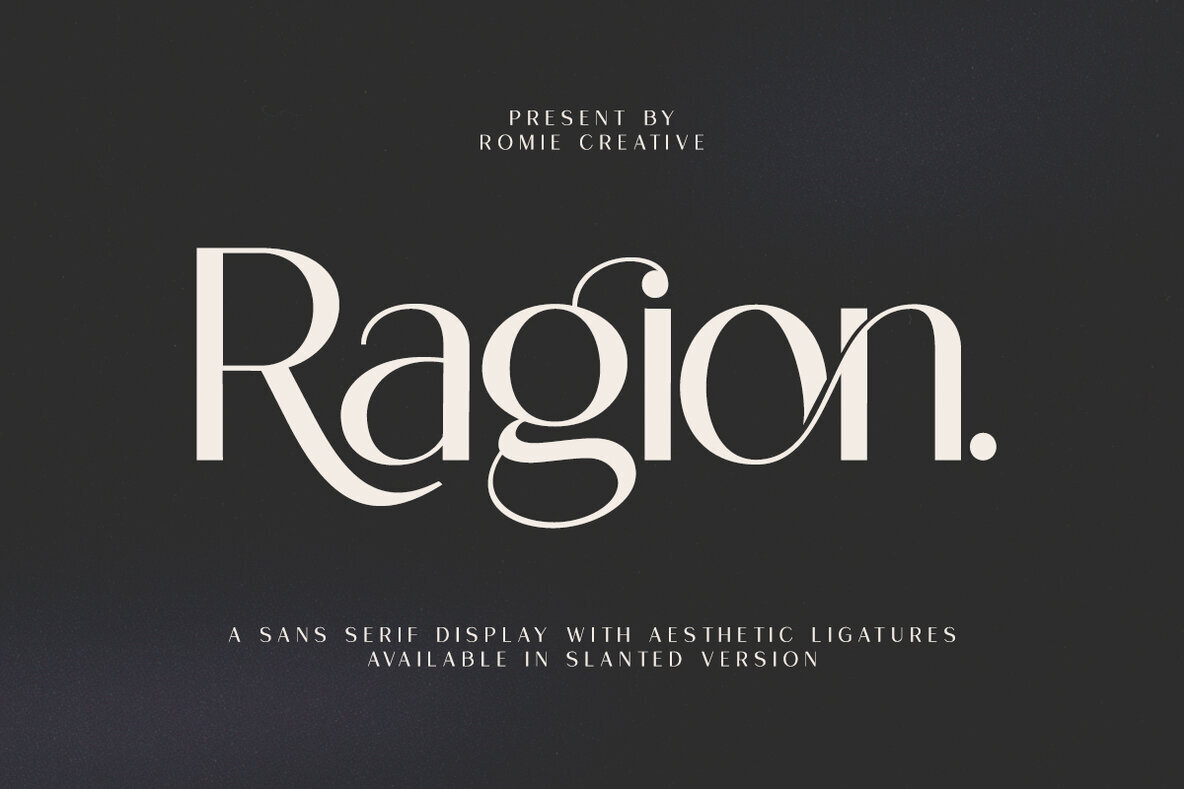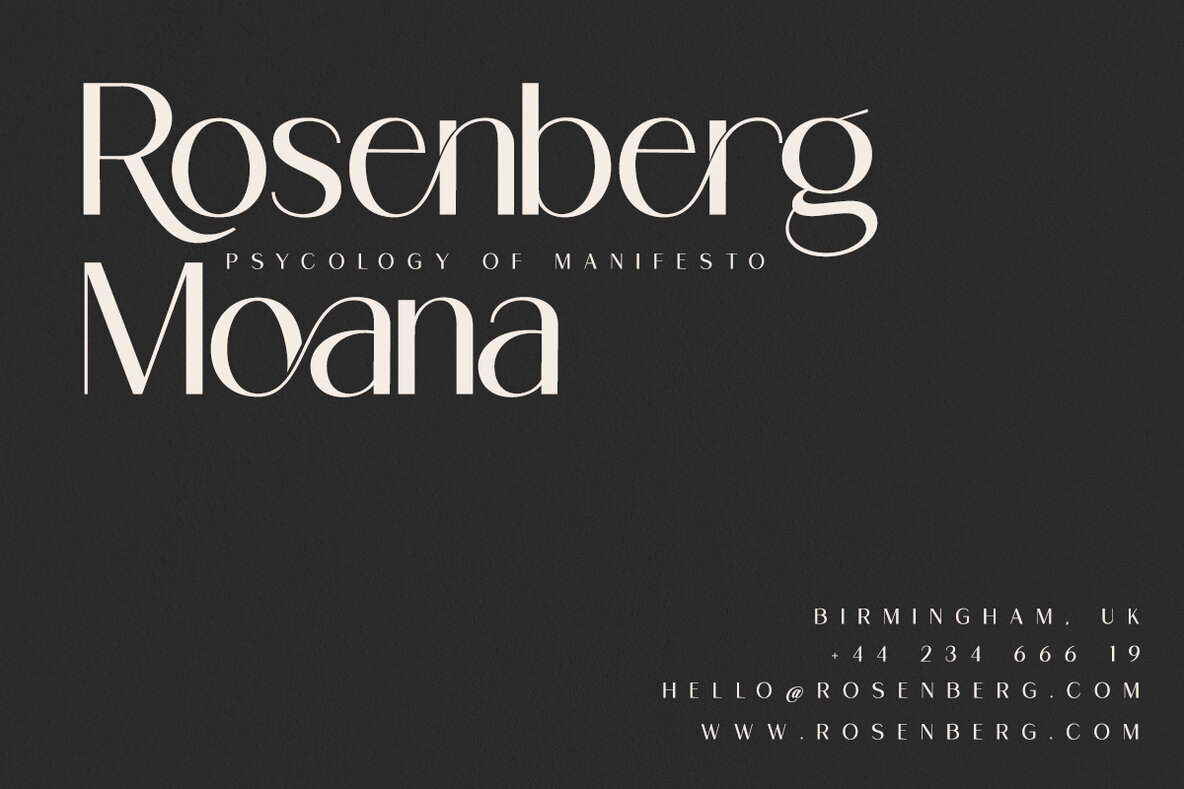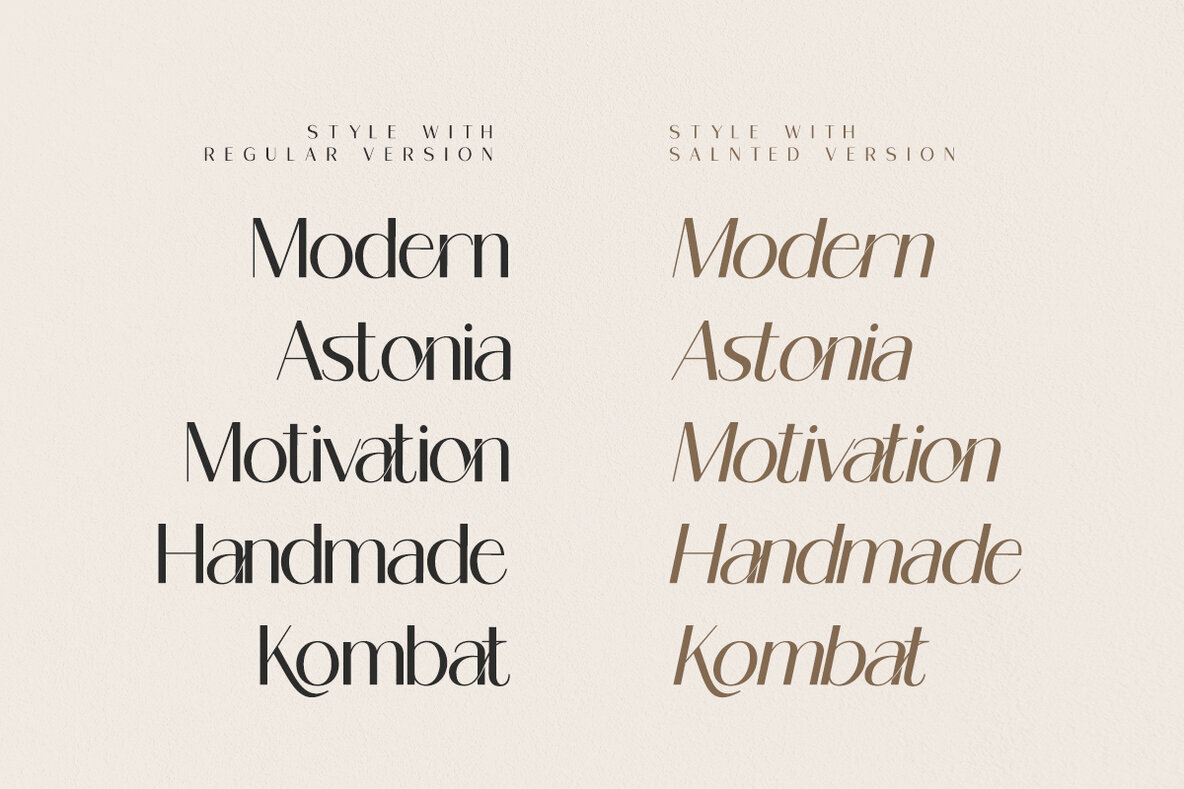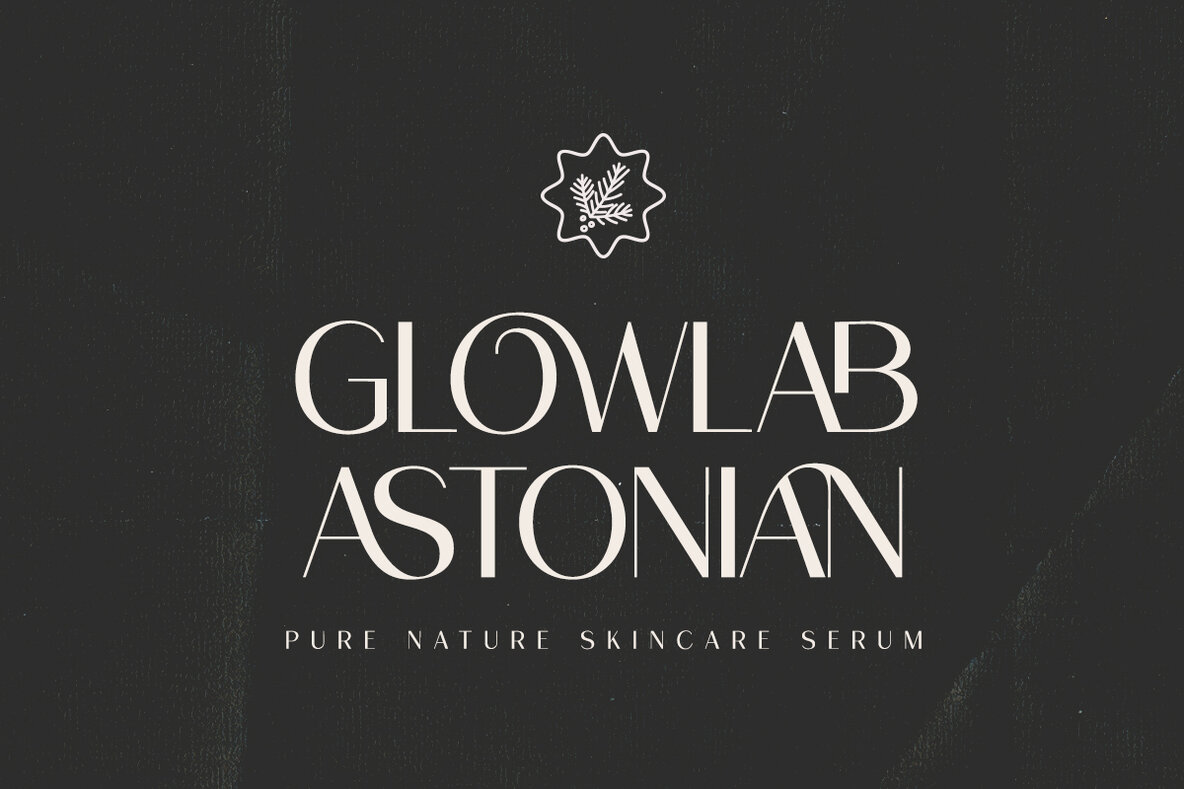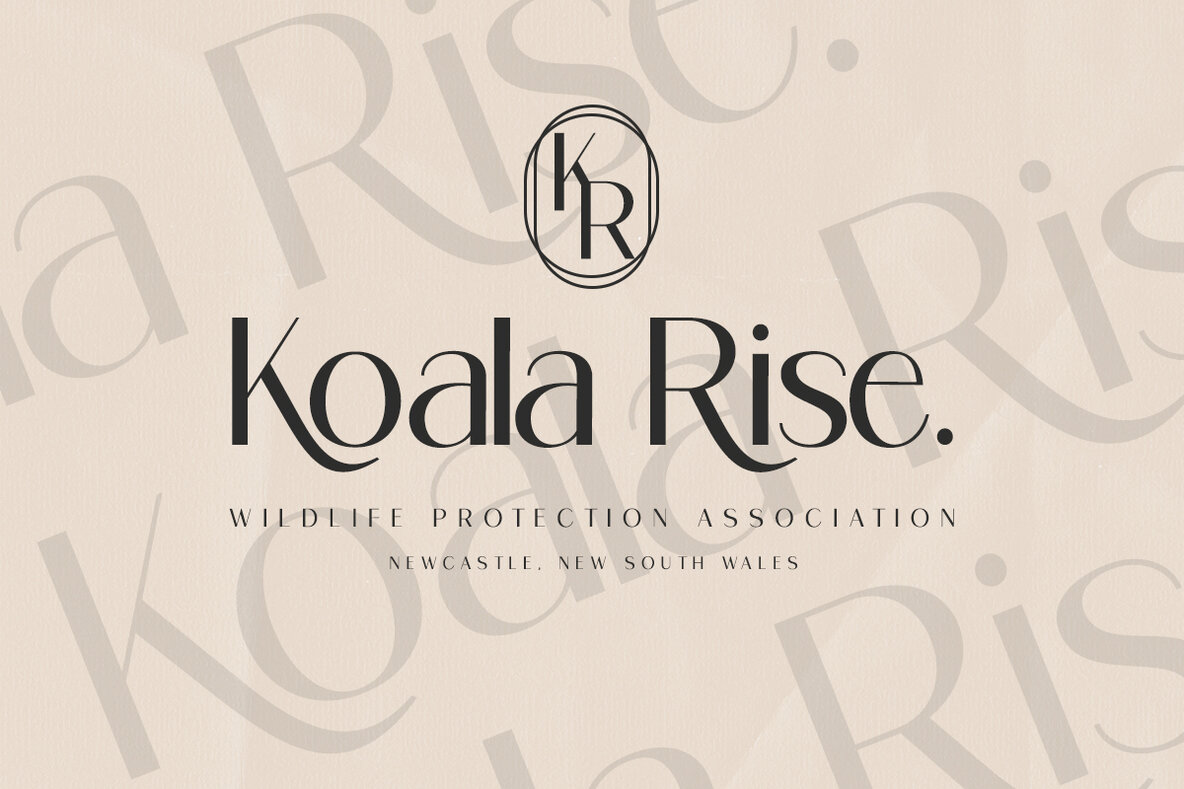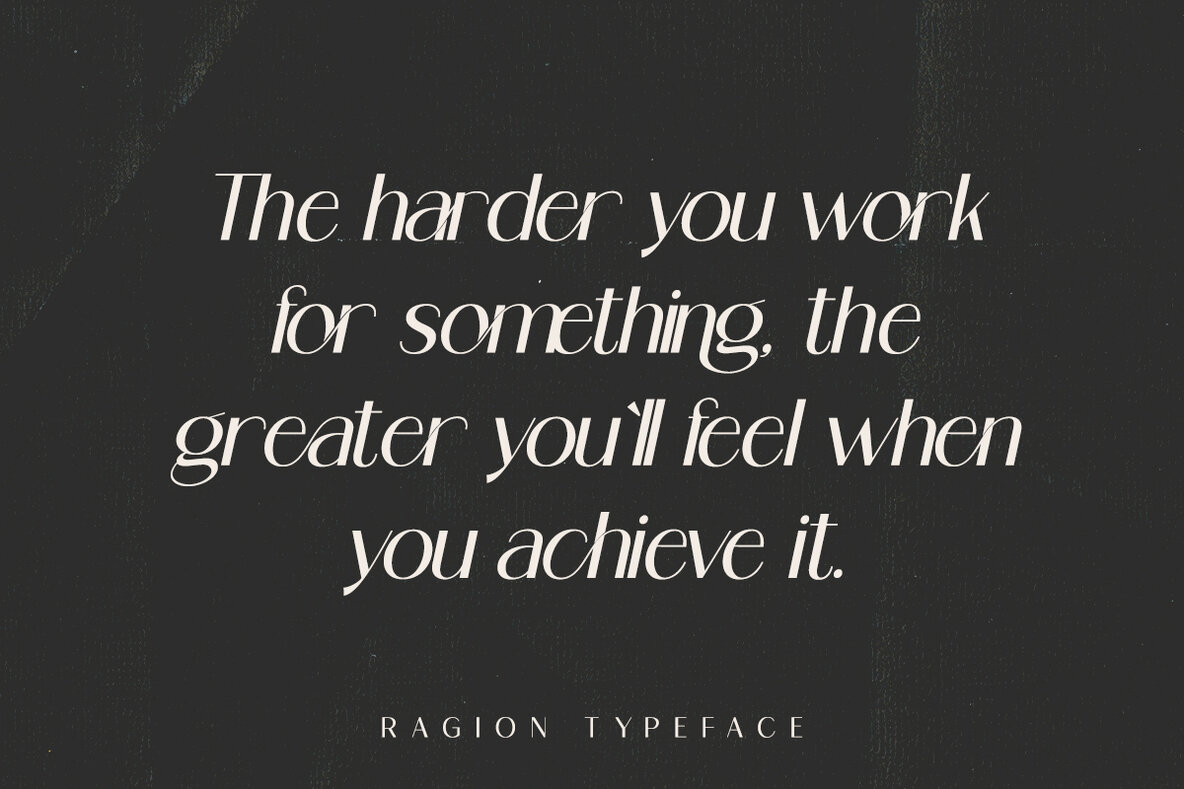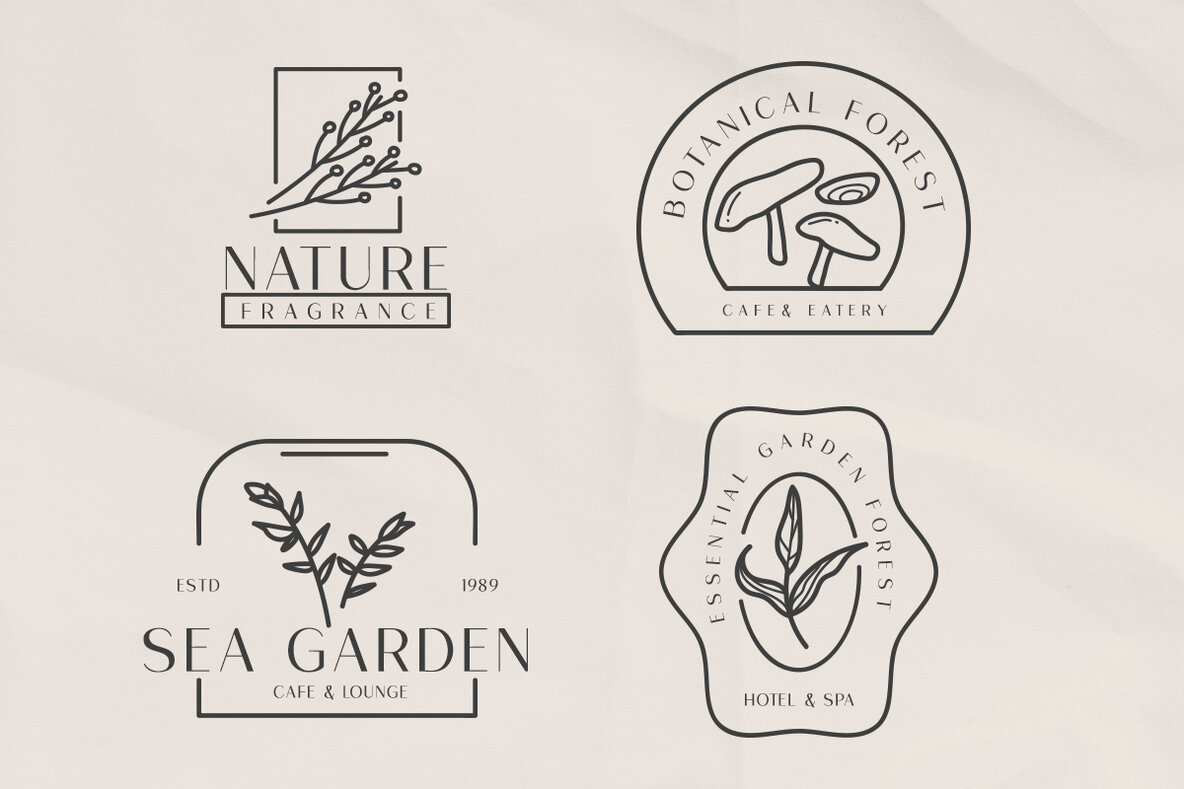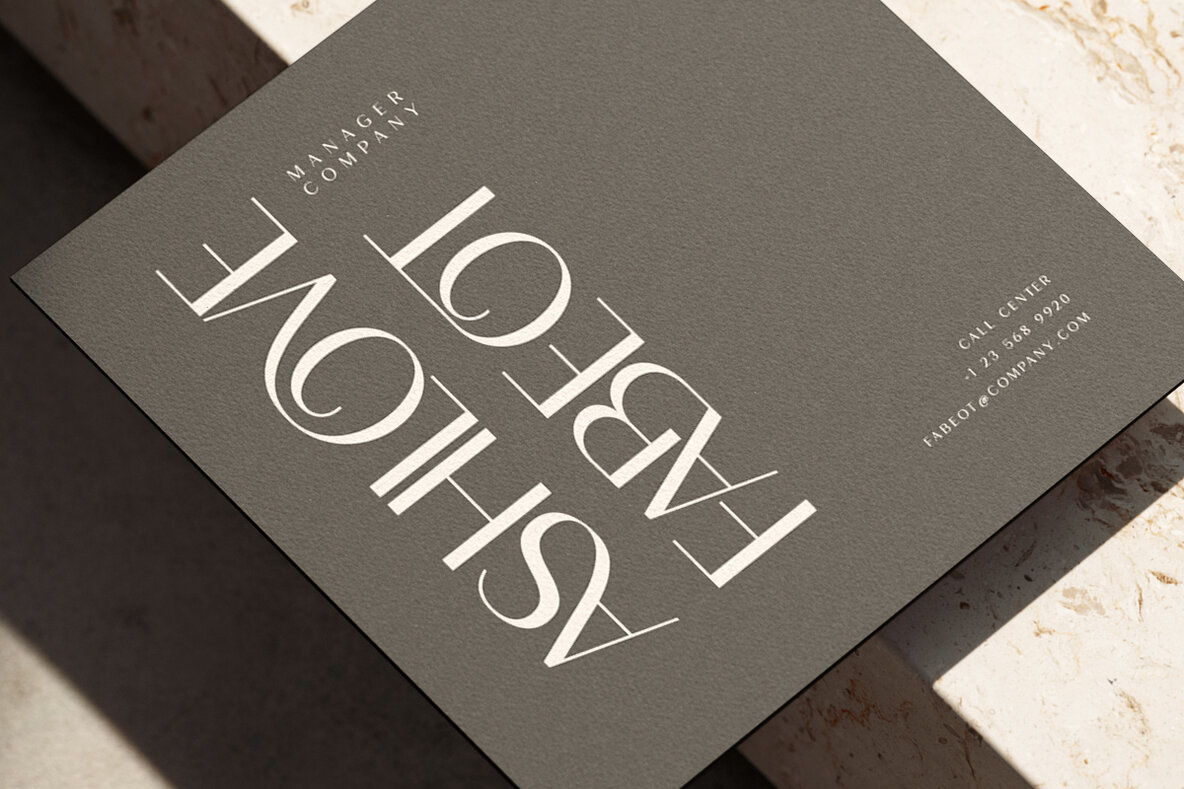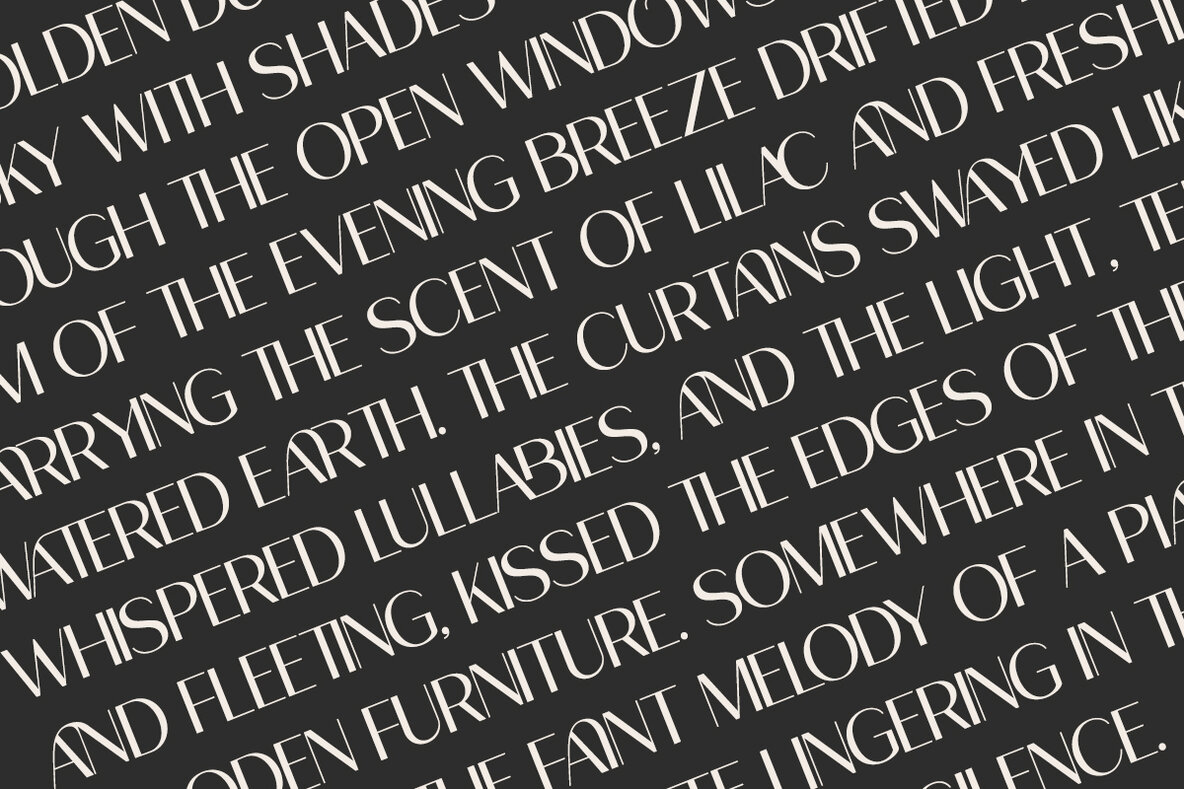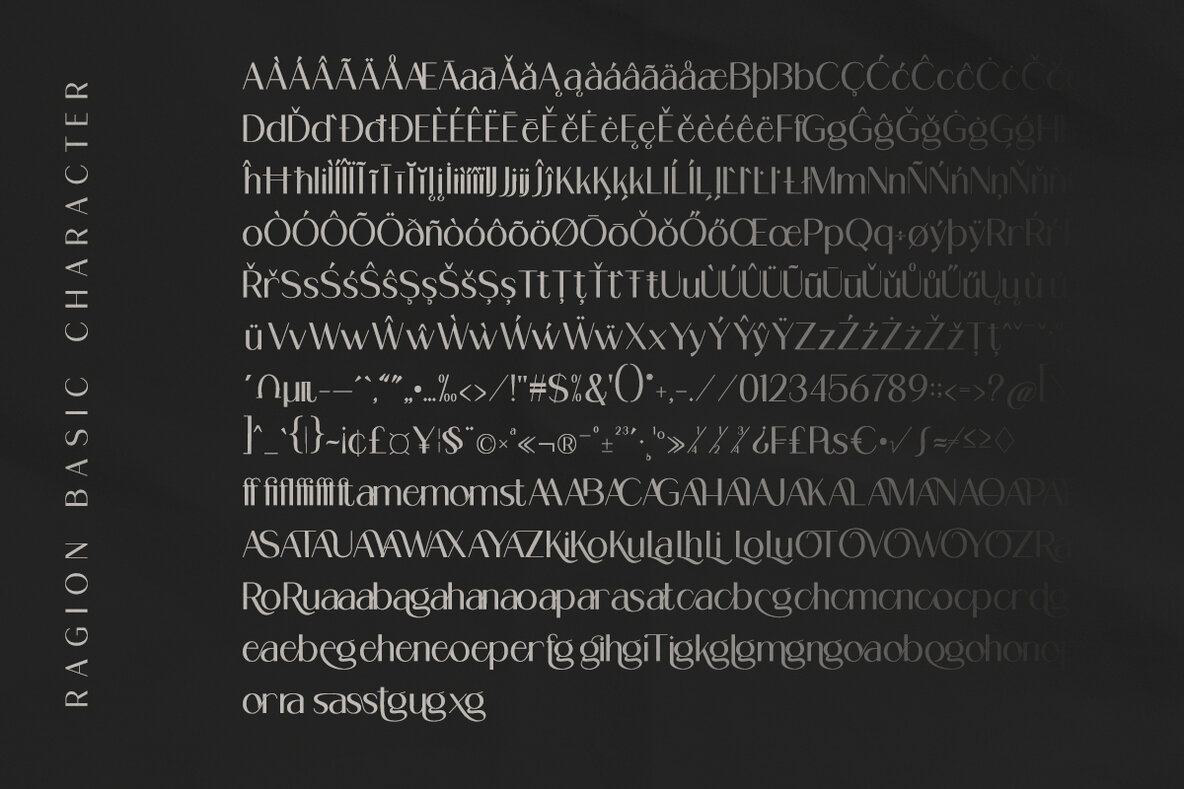
Ragion Font
Ragion is a modern and stylish sans serif font designed with a keen eye for elegance and clarity. Its contemporary structure and unique ligatures lend a refined touch to any project, appealing to both men and women seeking sophistication in their design work. Carefully balanced proportions make it suitable for a wide range of applications—from branding and editorial design to business cards and social media graphics. This font’s versatility shines across industries such as cosmetics, beauty, publishing, and luxury branding. Impress clients and audiences with clean, elevated typography that stands out in logos, magazines, brand names, and more. Ragion brings a sense of poise to any setting, ensuring your identity remains both recognizable and attractive.Ragion Modern Sans Serif Font